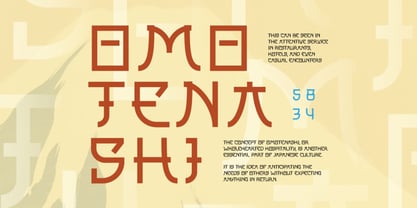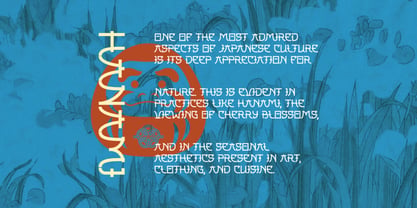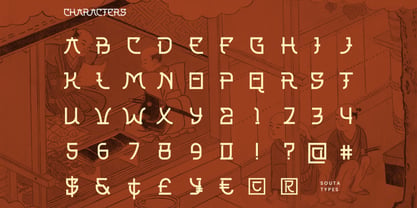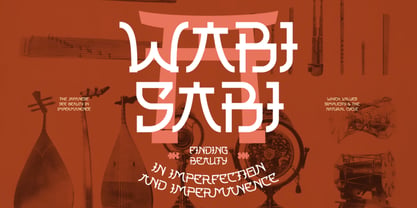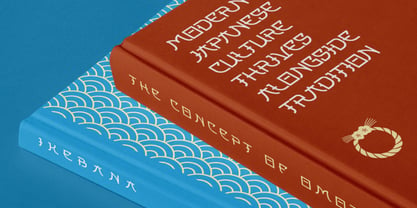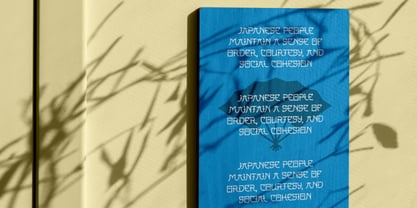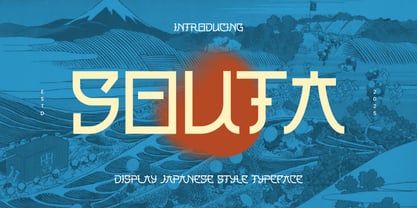
Souta
by Brandearth
The Souta Font Family was designed by Moch Rasjid Wiyono and published by Brandearth. Souta contains 1 styles. More about this family
Souta is a distinctive Japanese-inspired display typeface that blends modern geometric construction with subtle traditional Asian aesthetics. The letterforms feature clean vertical strokes, balanced proportions, and unique angular terminals reminiscent of Japanese signage and cultural motifs. Souta is highly relevant for projects that aim to reflect Japanese culture, heritage, or Asian-inspired aesthetics with a modern twist. Ideal for restaurant branding, sushi packaging, cultural festivals, travel campaigns, fashion editorials, art exhibitions, traditional product labels, Japanese-themed events, creative posters, and contemporary branding projects seeking a refined cultural identity.
Designers: Moch Rasjid Wiyono
Foundry: Brandearth